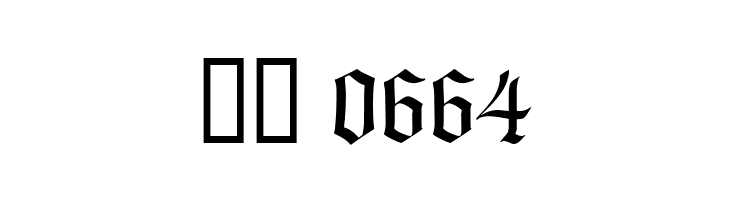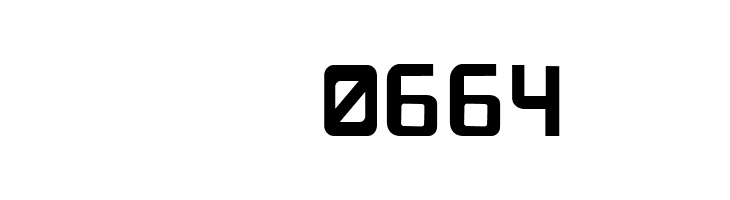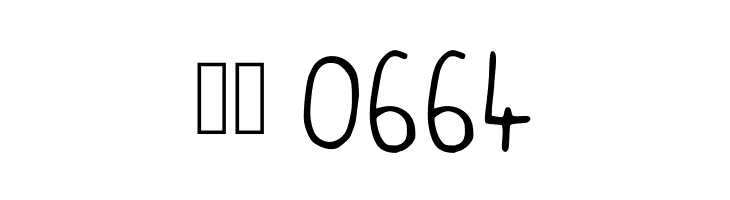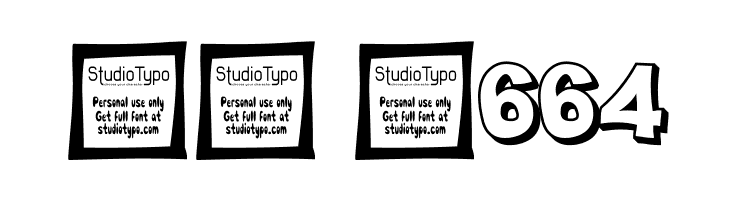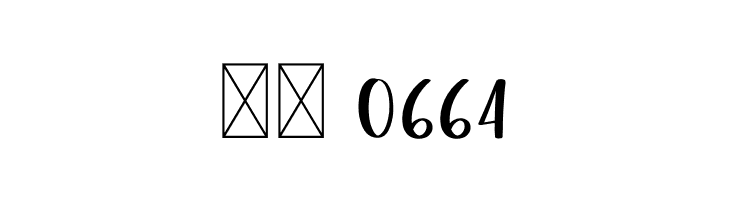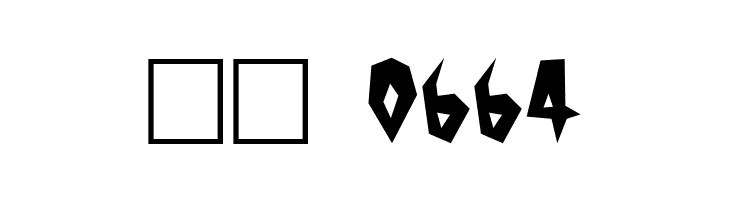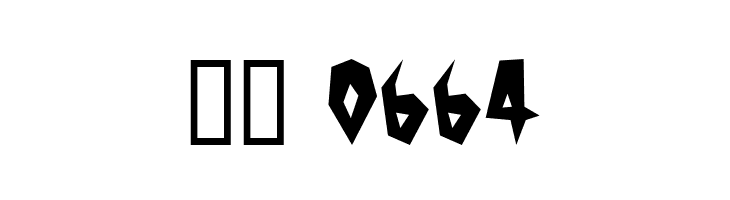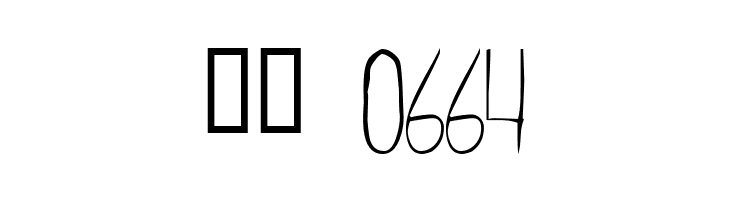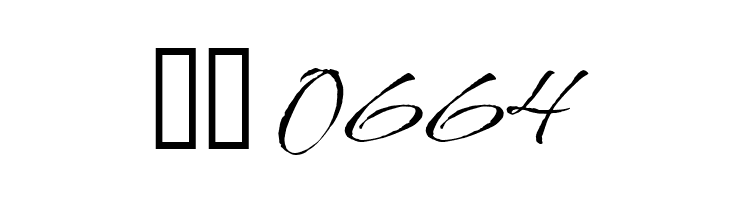
A modern, rounded font with a clean and approachable design.
A modern slab serif font with an italic slant, offering clarity and elegance.
A modern slab serif font with geometric shapes and consistent stroke widths.
A bold, cartoonish font with thick, rounded letters and a playful style.
A bold, textured brush script with a vintage, dynamic style.
A modern, light sans-serif font with a clean and minimalist design.
A bold, expressive script font with a hand-painted brush style.
A bold, brush-style font with dynamic, handcrafted strokes.
A bold, textured font with a vintage, distressed style.
A playful, hand-drawn font with a bold, sketch-like appearance.
A playful, casual handwritten font with organic strokes and rounded edges.
A dynamic and elegant script font with flowing, cursive letterforms.
A bold, modern font with clean, geometric shapes and rounded edges.
A bold, geometric sans-serif font with outlined characters for a modern look.
A lively, cursive handwritten font with smooth, connected letters.
A playful, handwritten font with bold, smooth strokes and a whimsical style.
A playful handwritten font with a casual and friendly style.
A playful, cactus-inspired font with bold, rounded letters and decorative spikes.
A bold, jagged font with sharp, angular shapes for a dynamic look.
A playful, cactus-themed font with spiny, decorative characters.
A playful, decorative font with cactus-like embellishments and bold characters.
A playful, bold, and outlined font with a whimsical, hand-drawn style.